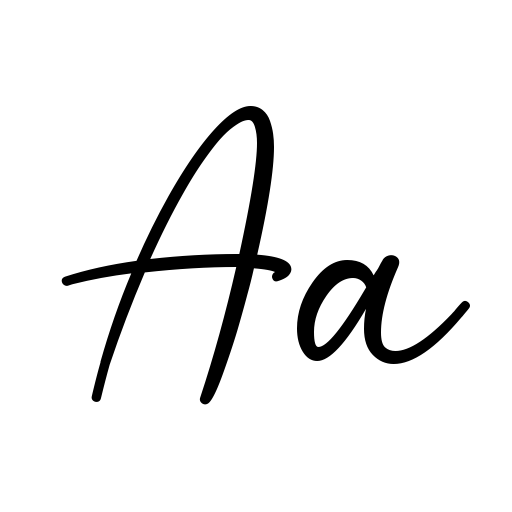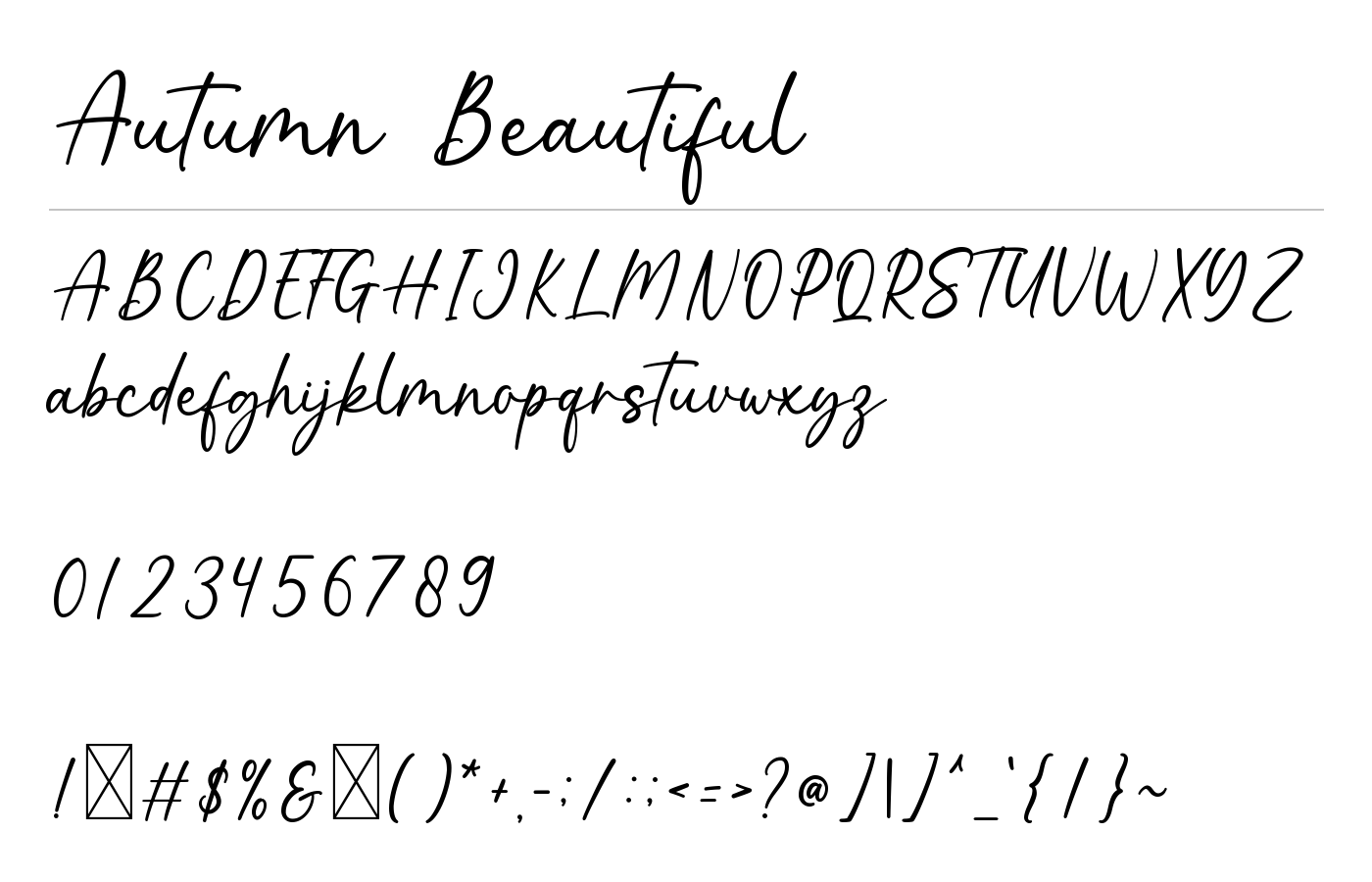
Autumn Beautiful is a delicate, handwritten script font with a light, airy feel and smooth, flowing strokes that create an elegant and friendly appearance. Its slender letterforms and consistent weight make it ideal for personal branding, invitations, and feminine design projects seeking a natural, graceful touch. This font works well in headlines and logos where a warm, approachable style is desired.
Autumn Beautiful Font
About Autumn Beautiful Font
| Font family | Autumn Beautiful Font |